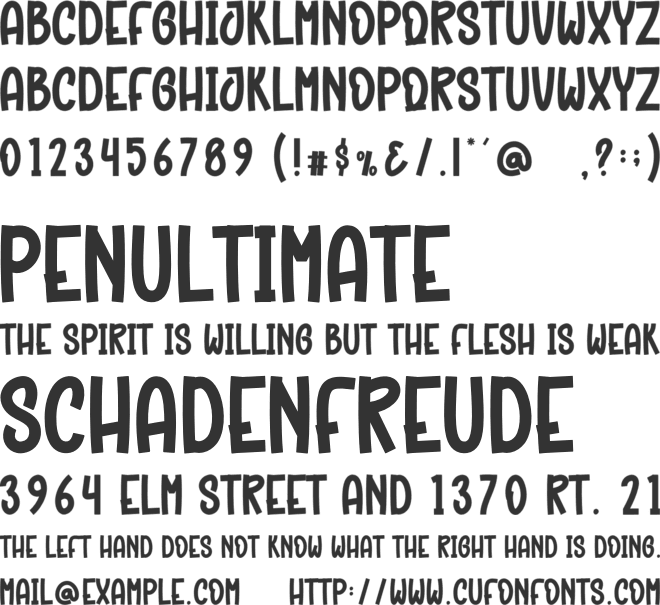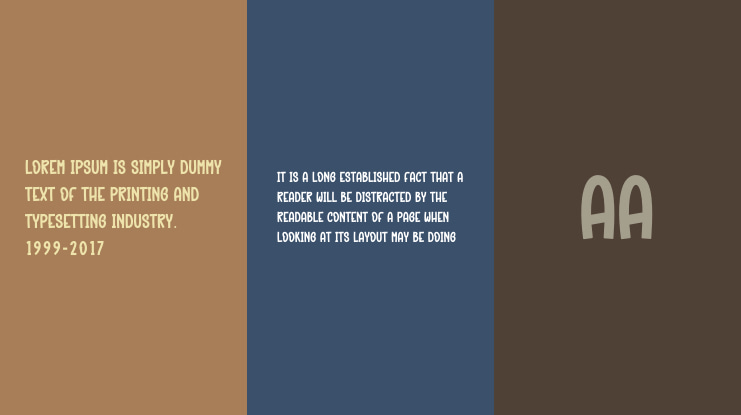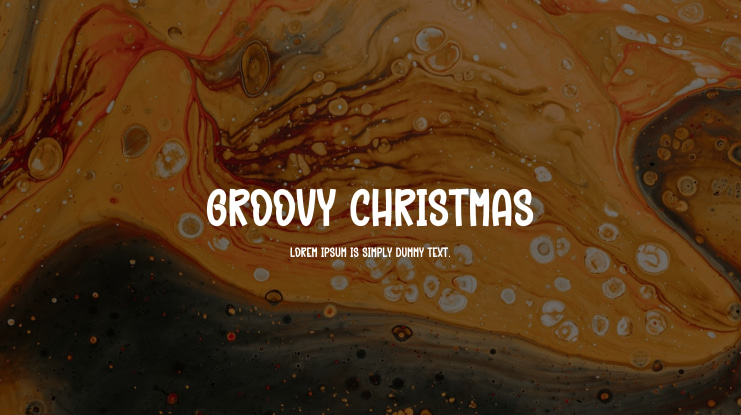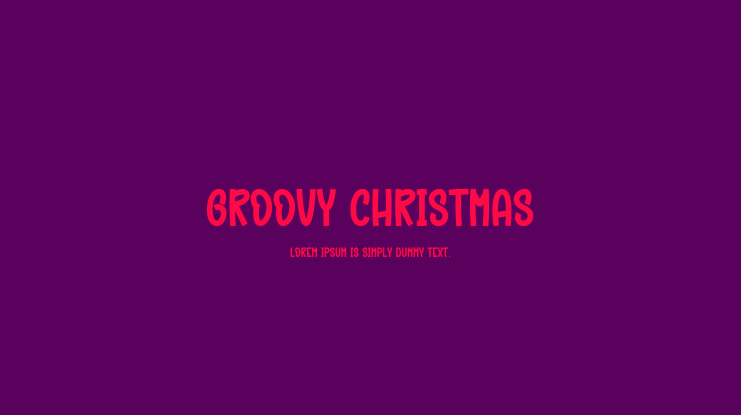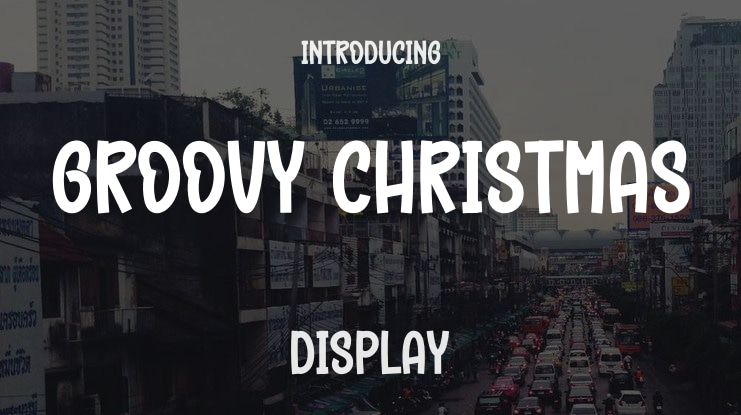
Our latest style of fonts is perfect for a wide range of uses, including:
- Wall displays - Wedding invitations - Social media post logos - Advertisements - Product packaging - Product designs - Labels - Photography - Watermarks - Invitations - Stationery
Essentially, any project that requires the elegance of handwritten style.